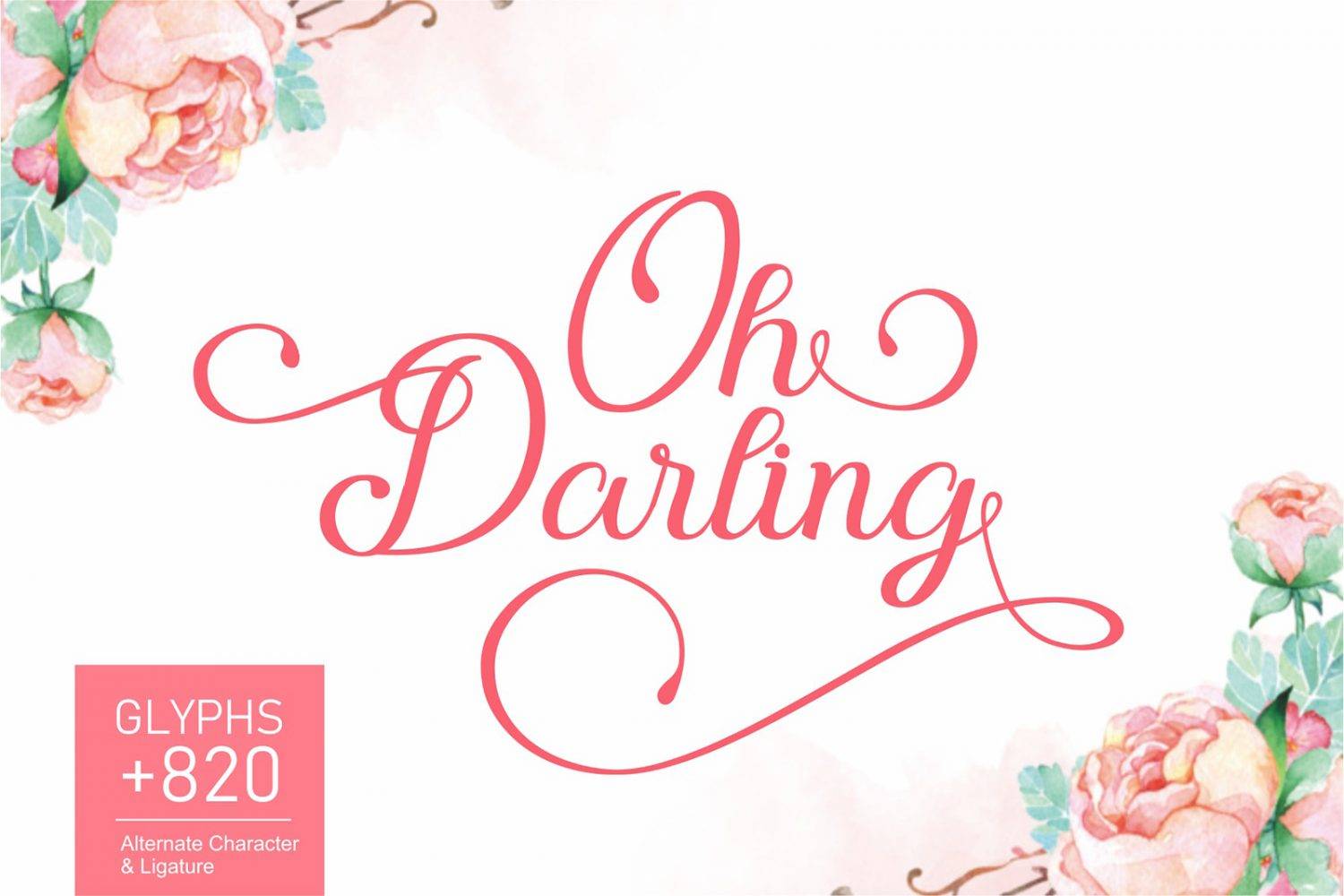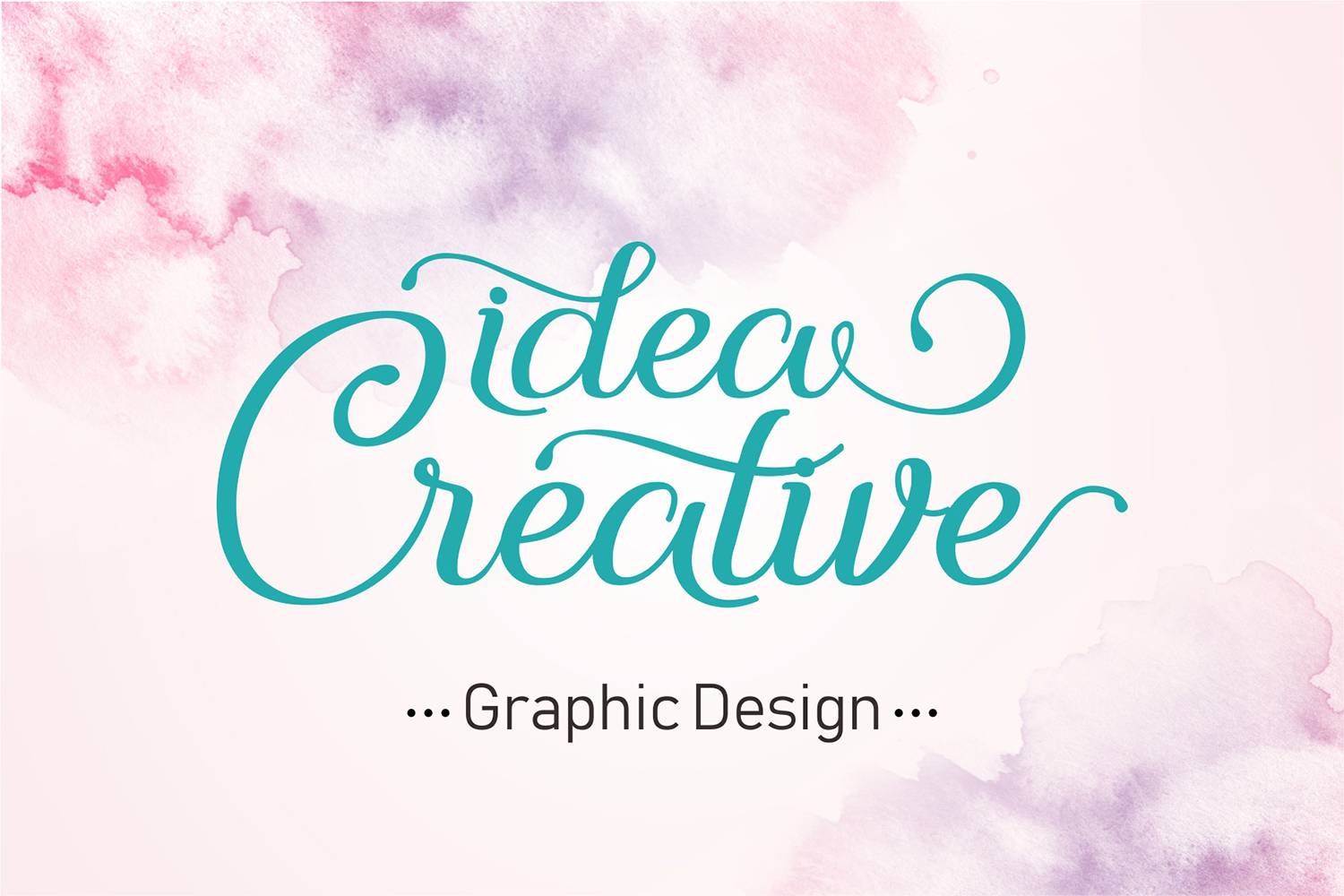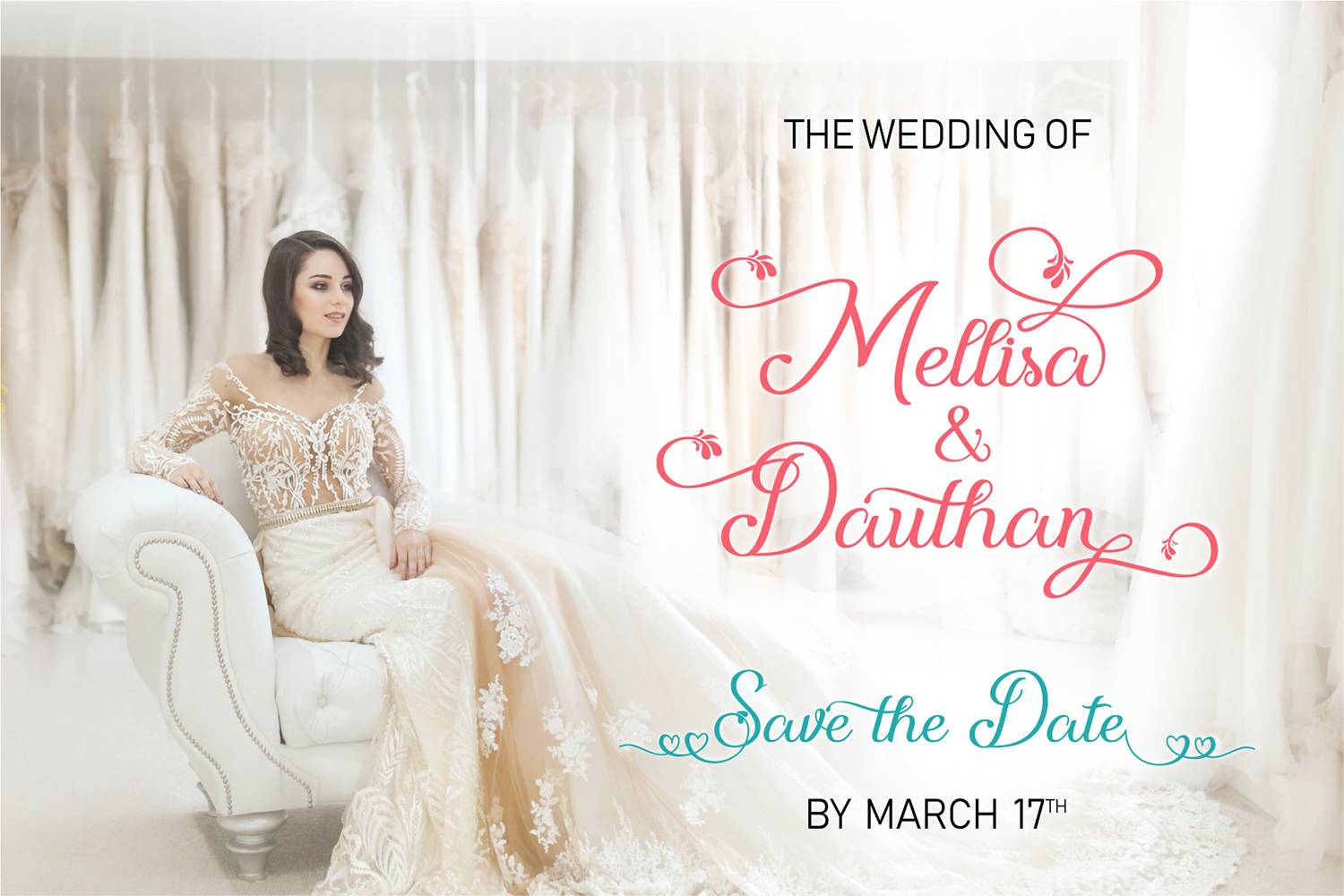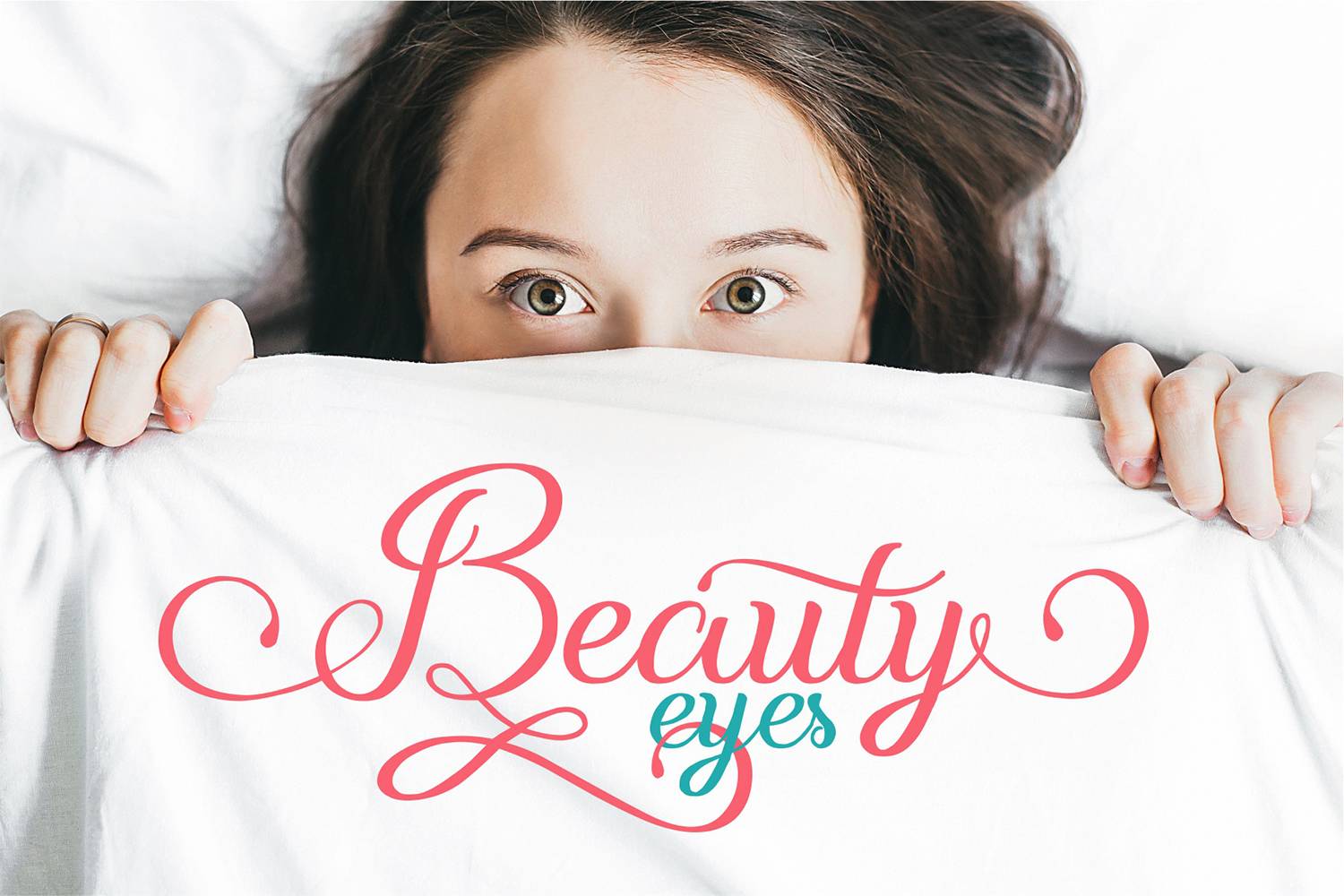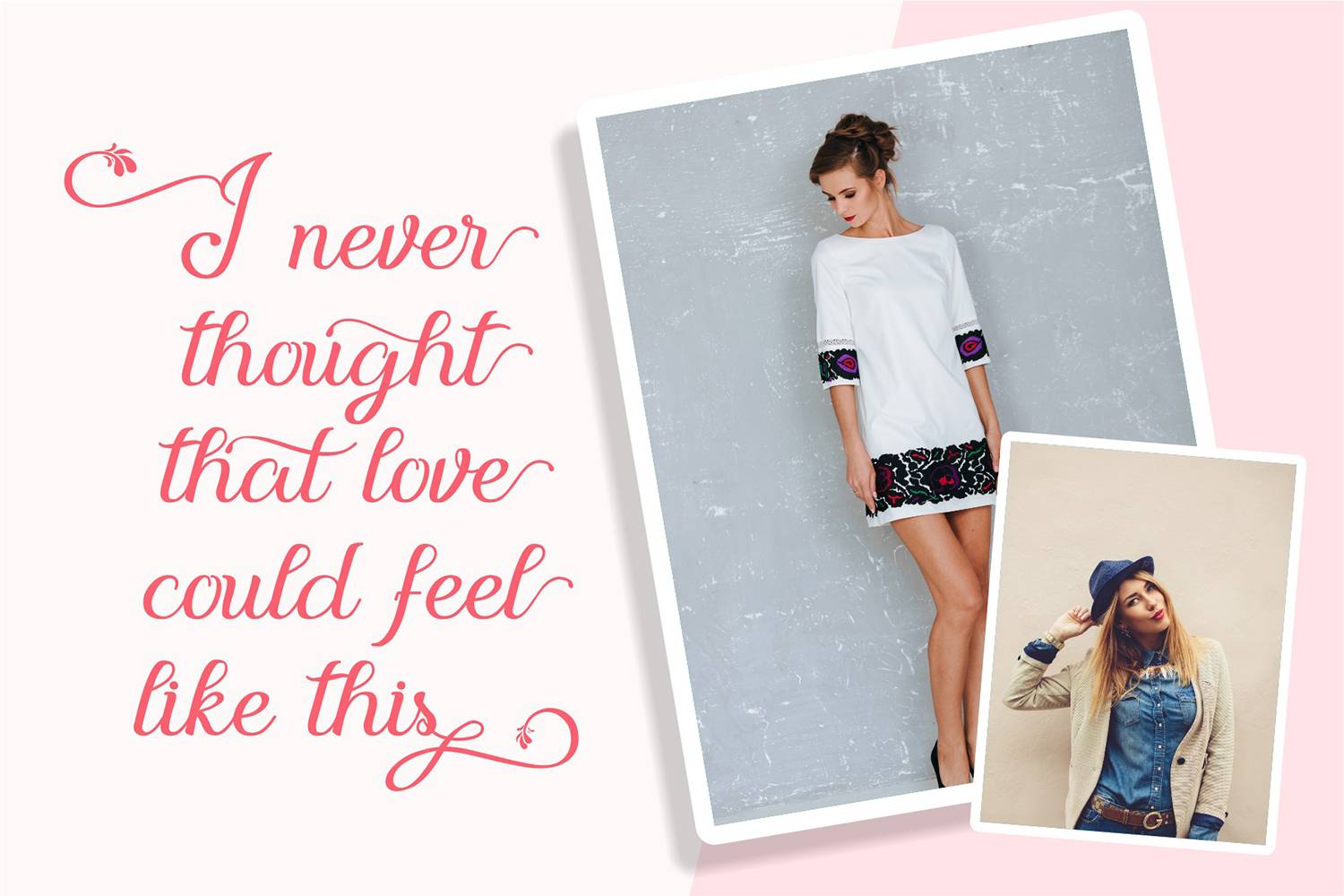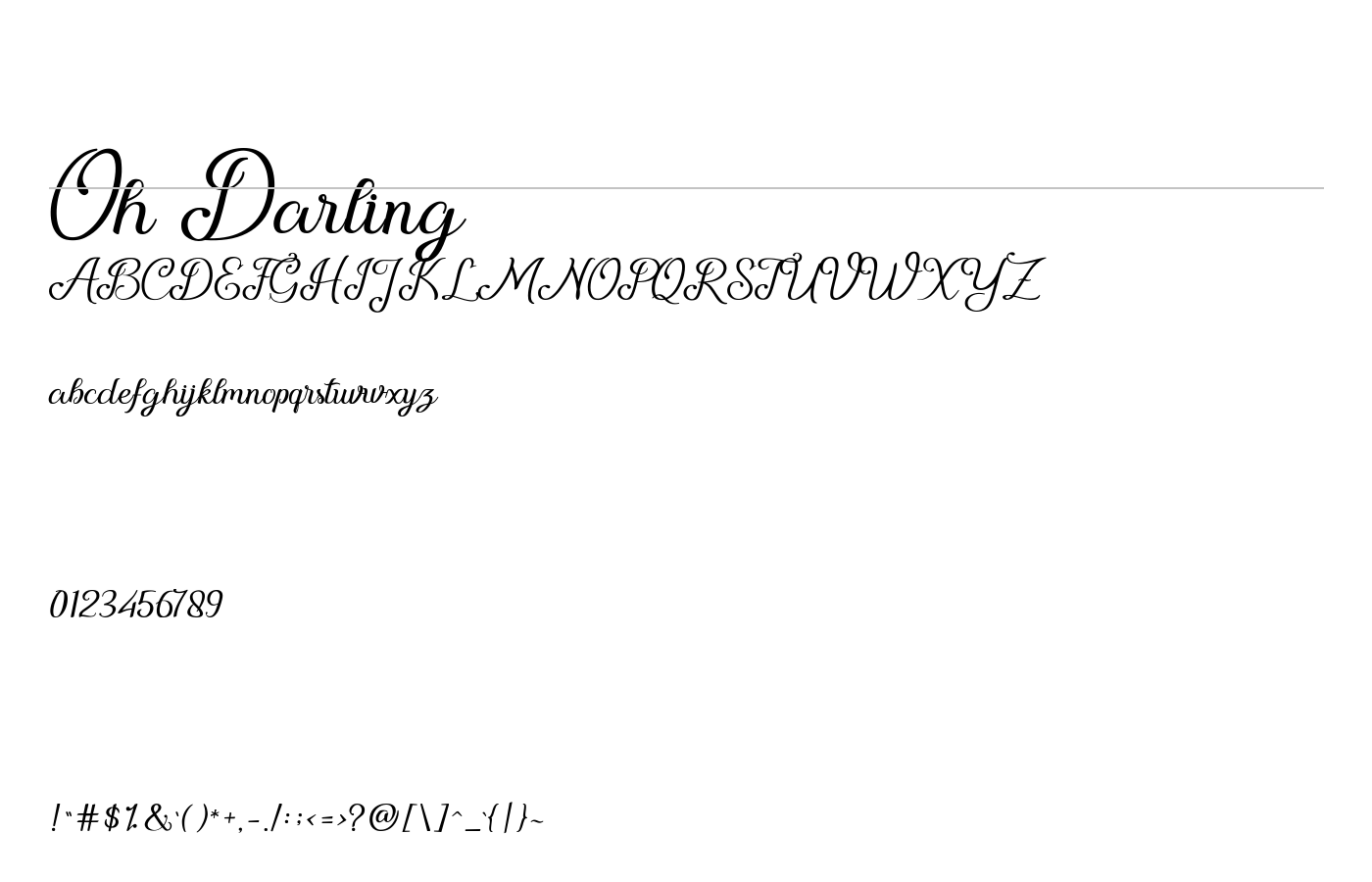
Oh Darling is an elegant script font with flowing, delicate strokes and a graceful, vintage-inspired charm. It features smooth, calligraphic letterforms with moderate contrast and a refined, slightly condensed style, making it perfect for romantic branding, invitations, and stylish headlines that need a touch of sophistication and warmth. This font works wonderfully in projects seeking a feminine, classic feel with a modern flourish.
Oh Darling Font
About Oh Darling Font
| Font family | Oh Darling Font |
| Designer | Rizaldi Wandani |